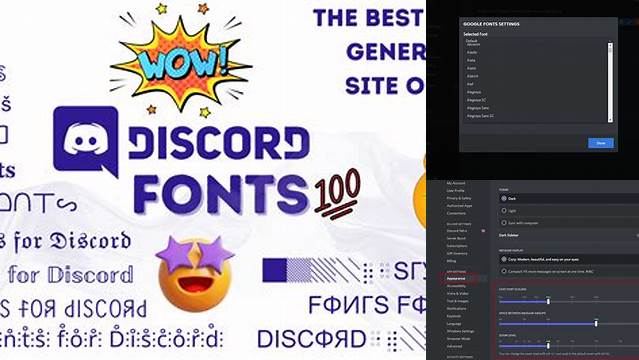
Discord Fonts: How To Use Custom Fonts
So, you're looking to spice up your Discord experience by using custom fonts? Awesome! While Discord doesn't natively support custom fonts in the way you might expect, there are still some cool workarounds and things you should know. Let's dive in and explore how you can personalize your Discord text!
1. Understanding Discord's Font Limitations
Okay, first things first, let's talk about the elephant in the room: Discord doesn't let you directly change the font used in the app's interface or chat messages. Discord uses its own set of fonts to ensure consistency across different platforms and devices. This means you can't just download a font and select it within Discord settings like you might in a word processor. However, don't lose hope! There are still ways to get creative with your text.
Why Discord Limits Font Changes
You might be wondering why Discord restricts font customization. Well, there are a few good reasons. Consistency is key for user experience, and using a standard font ensures that text looks the same for everyone, regardless of their operating system or device. This helps prevent readability issues and maintains a uniform look and feel across the platform. Additionally, allowing custom fonts could potentially introduce security vulnerabilities or performance problems, which Discord wants to avoid.
The Default Discord Font
By default, Discord uses a font called Uni Sans. You'll see this font in various parts of the app, including chat messages, server names, and user interfaces. While it's a clean and legible font, it might not be everyone's cup of tea. That's why people often look for ways to inject some personality into their Discord text.
2. Using Unicode Characters for Text Variations
One of the simplest ways to add some flair to your Discord messages is by using Unicode characters. Unicode is a universal character encoding standard that includes a vast range of symbols, letters, and other characters beyond the standard alphabet. By using Unicode, you can create text variations that stand out from the crowd. This is where the real magic begins!
Finding Unicode Text Generators
There are tons of online tools and websites that can help you generate fancy text using Unicode characters. These tools typically allow you to type in your desired text, and then they'll provide you with a variety of stylized versions that you can copy and paste into Discord. A quick Google search for "Unicode text generator" will reveal a plethora of options. I personally recommend checking out websites like LingoJam or YayText. They're super easy to use and offer a wide range of styles. Just type in your text, choose a style you like, and copy the generated text into your Discord chat. It’s like a digital makeover for your words!
Examples of Unicode Text Styles
So, what kind of text styles can you create with Unicode? The possibilities are nearly endless! You can generate text with different font styles like bold, italic, monospace, or even fancy decorative styles like bubble text, upside-down text, or gothic text. These styles can be great for highlighting important messages, adding emphasis, or simply making your text more visually appealing. Here are a few examples:
- Bold: This text is bold.
- Italic: This text is italic.
- Underline: This text is underlined.
Strikethrough:This text has a line through it.- Monospace:
This text is monospace.
Limitations of Unicode Text
While Unicode text can be fun, there are a few limitations to keep in mind. First, not all Unicode characters are supported by every device or platform. This means that some users might not see the stylized text correctly, and it could appear as generic characters or boxes. Additionally, using too much stylized text can make your messages difficult to read, so it's best to use it sparingly and strategically. Think of it as adding seasoning to your food – a little goes a long way!
3. Utilizing Discord Markdown for Basic Formatting
Discord supports a simplified version of Markdown, a lightweight markup language that allows you to format your text using simple symbols. While it doesn't let you change the actual font, Markdown can be used to add emphasis and structure to your messages. It's like giving your text a little bit of personality without going overboard.
Markdown Basics: Bold, Italics, and More
Discord Markdown uses specific symbols to indicate formatting. For example:
- To make text bold, surround it with double asterisks ([asterisk][asterisk]bold text[asterisk][asterisk]).
- To make text italic, surround it with single asterisks ([asterisk]italic text[asterisk]).
- To underline text, surround it with double underscores ([underscore][underscore]underlined text[underscore][underscore]).
- To strikethrough text, surround it with double tildes ([tilde][tilde]strikethrough text[tilde][tilde]).
- To create a code block, surround your text with single backticks ([backtick]code[backtick]).
These simple formatting options can help you highlight key information, organize your thoughts, and make your messages more readable.
No, jailbreaking poses significant security risks.
Report Offensive Fonts
Report any offensive fonts you see to Discord's moderation team.
So, there you have it! While you can't directly change the font used in Discord's interface, there are still plenty of ways to personalize your text and add some visual flair to your messages. Get creative with Unicode, master Discord Markdown, and explore the world of custom emojis. And remember, always be cautious when considering third-party apps or clients. Have fun experimenting and making your Discord experience your own!